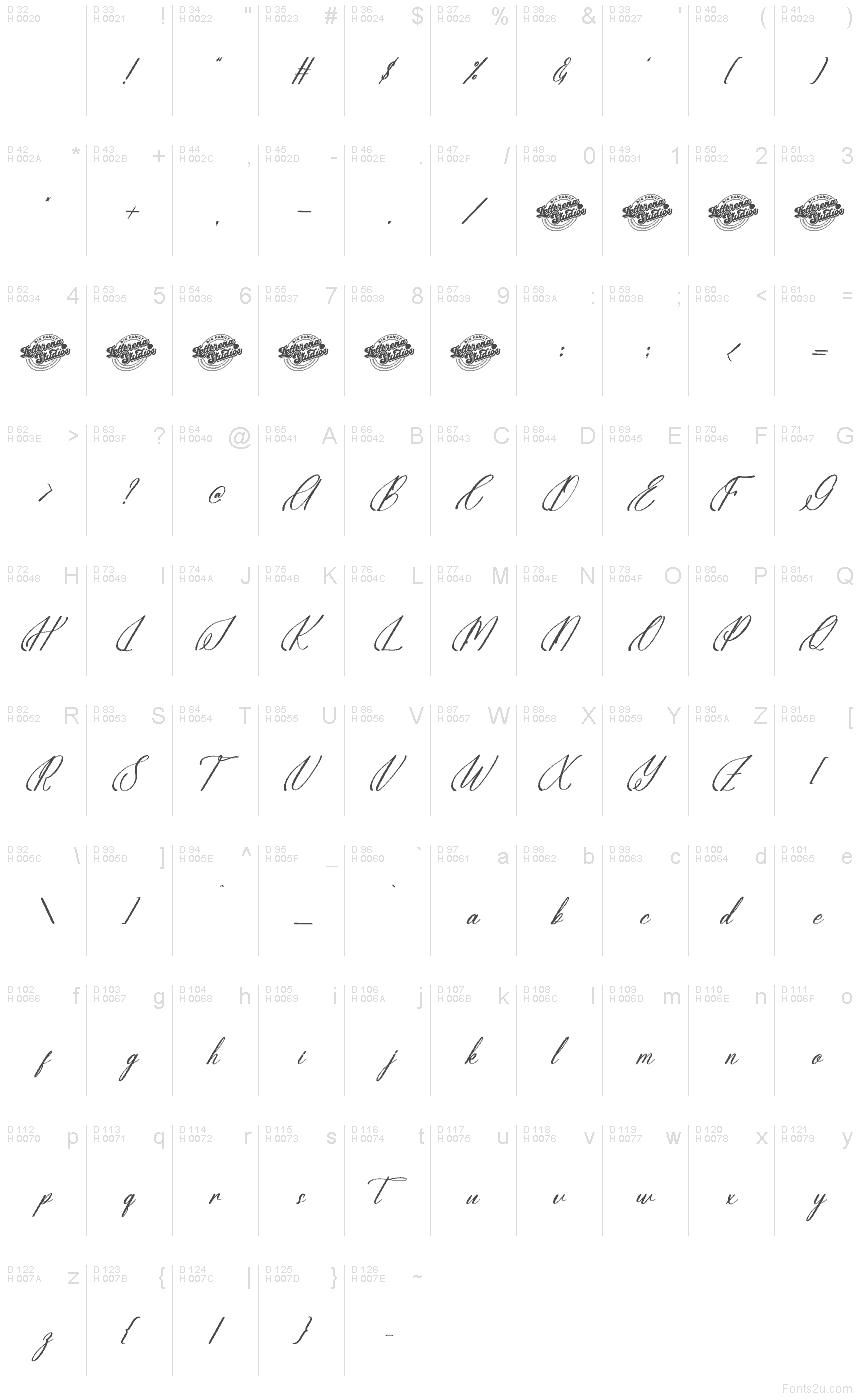
Elsantie Perilyna DEMO VERSION Italic
Elsantie Perilyna Italic font by Letterena Studios is a free handwritten script typeface. It solves the common “too fancy to read” issue: the silky curves and light, inky strokes add romance while a steady rhythm keeps names and short phrases clear at a glance. Part of the Elsantie Perilyna family, it brings poised energy with graceful loops that feel tailored rather than fussy.
Using Elsantie Perilyna Italic, headlines and signatures glide, not sprawl, thanks to even spacing and restrained swashes. It shines on wedding invitations, event stationery, boutique logos, beauty packaging, quote graphics, and social headers. For a polished system, pair this free font with a clean geometric sans and set names a size up with generous line spacing.